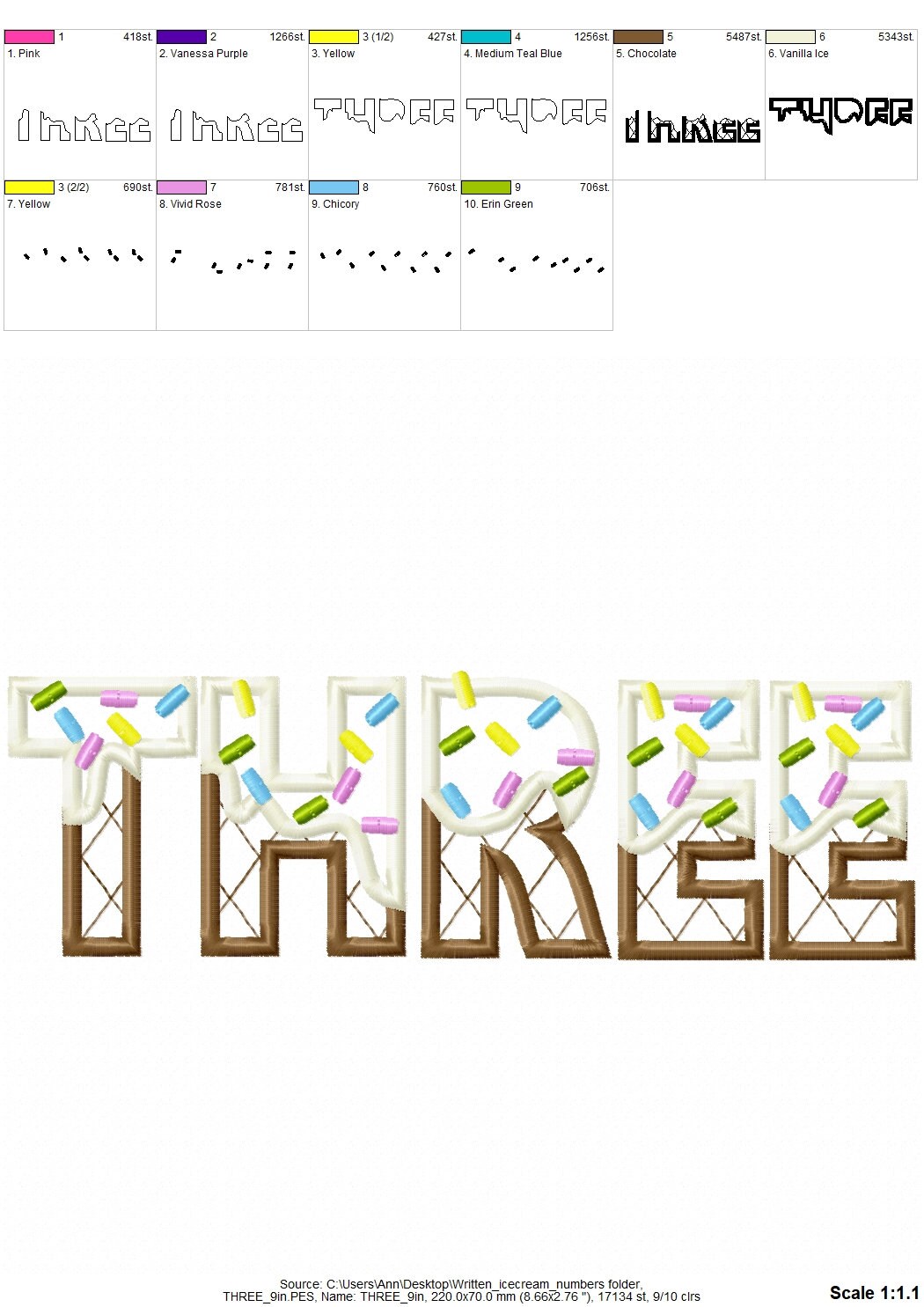
THREE Ice Cream cone Birthday Number three 3 applique machine embroidery designs in assorted sizes, word number two kids baby birthday party
Number three 3 Appliqué designs